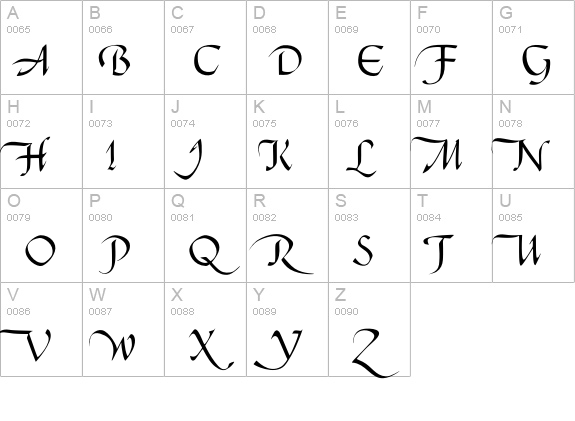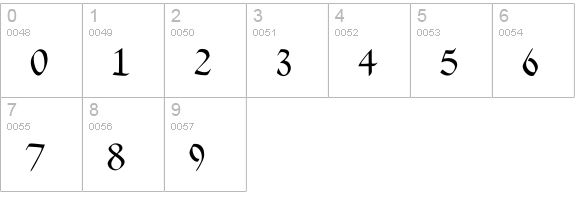
FlourishSpecial font is a captivating and elegant typeface that exudes sophistication and grace. With its intricate flourishes and stylish design, this font is perfect for adding a touch of luxury to your projects. Whether you're creating wedding invitations, branding materials, or elegant designs, FlourishSpecial font will elevate your work to the next level. The best part? FlourishSpecial font is completely free to download at FontsMarket.com. This means you can add this stunning font to your collection without having to spend a penny. Don't miss out on the opportunity to enhance your designs with the beauty and charm of FlourishSpecial font. Download it today and bring a touch of elegance to your projects.